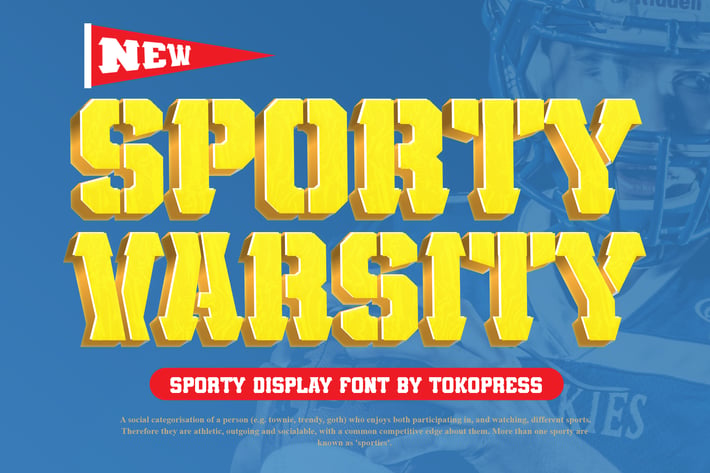
Sporty Varsity - Stencil Font
Sporty Varsity is a dynamic, high-impact display font inspired by varsity athletics and bold sports visuals. Designed with sharp stencil cuts, strong proportions, and high contrast, this font evokes the raw energy of stadium banners, team jerseys, and gym apparel branding.
Its confident, square-like structure and slightly industrial edge bring a modern athletic feel. The vibe is bold, gritty, and motivating, making it perfect for performance-oriented messaging and design. With geometric block letters, angular edges, and solid legibility, it stands out in fast-paced and competitive visual contexts.
Whether you're crafting a fitness challenge campaign, launching a sportswear line, or designing an event logo for a track-and-field tournament, Sporty Varsity hits the mark. It enhances the look of editorial spreads, digital ads, training schedules, and motivational posters by delivering an unmistakably competitive edge. Perfect for brands that want to energize and lead with strength and confidence.
Use it to instill team pride, motivate athletes, and hype up any competitive project.
Key Features
Why designers and marketers choose Sporty Varsity :
- Athletic DNA – Built for sports, fitness, and action-packed designs
- College-Inspired Structure – Traditional varsity influence with a modern cut
- Readable at Scale – Great for headlines, uniforms, print collateral, and web banners
- Emotionally Charged – Instills a sense of power, unity, and motivation
- Sharp & Strong – Commanding visual structure ideal for assertive branding